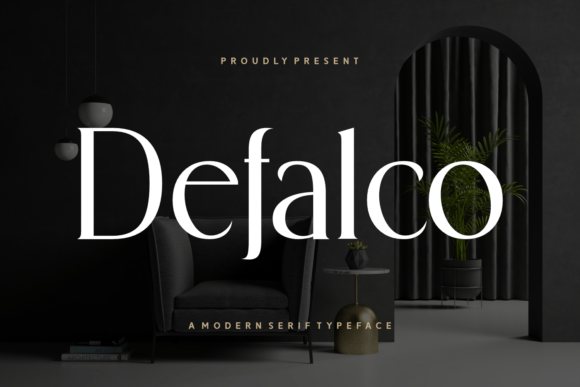
Introducing Defalco Font: The Epitome of Modern Serif Elegance
In the realm of typography, the right font can elevate a design from mundane to extraordinary. For those seeking a typeface that exudes sophistication, luxury, and modernity, look no further than Defalco Font. This stunning serif font is making waves in the design community with its crisp, elegant lines and versatile appeal. In this article, we’ll delve into the world of Defalco Font, exploring its unique characteristics, design inspiration, and the creative possibilities it offers.
Defalco Font: Elevating Design with Modern Serif Elegance
The Design Behind Defalco Font
Defalco Font is a masterclass in modern serif design. Its creation involved a meticulous process of blending traditional serif elements with contemporary flair. The result is a typeface that feels both timeless and cutting-edge. Each letterform in Defalco is crafted with precision, featuring subtle curves and sharp lines that contribute to its overall elegance.
Key Features of Defalco Font
- Modern Serif Design: Defalco boasts a modern serif style that sets it apart from more traditional typefaces. Its serifs are sleek and understated, adding a touch of sophistication to any design.
- Elegant Lines: The font’s lines are crisp and clean, making it perfect for high-end branding, editorial design, and luxury packaging.
- Versatility: Defalco is designed to be versatile, suitable for a wide range of applications from digital interfaces to print materials.
- Legibility: Despite its elegant design, Defalco maintains excellent legibility, ensuring that your message is conveyed clearly and effectively.
Design Inspiration: The Intersection of Luxury and Modernity
The promotional image featuring Defalco Font is a testament to its high-end aesthetic. Set against a backdrop of a luxurious, contemporary interior, the font is showcased in a crisp, elegant white. The sophisticated setting, complete with designer furniture and atmospheric lighting, highlights the font’s chic character. This visual representation underscores Defalco’s potential to elevate designs in luxurious contexts, from high-fashion magazines to upscale brand campaigns.
Creative Possibilities with Defalco Font
Defalco Font opens up a world of creative possibilities for designers. Here are a few ways to leverage this stunning typeface:
Branding and Logo Design
For brands aiming to convey luxury, sophistication, and modernity, Defalco is an excellent choice. Its elegant lines and serif details can add a touch of class to logos, making them stand out in a crowded market.
Editorial Design
Defalco shines in editorial design, particularly in high-end publications. Its legibility and aesthetic appeal make it perfect for articles, headlines, and titles, adding a layer of sophistication to any editorial spread.
Luxury Packaging
Luxury brands often seek unique ways to stand out on crowded store shelves. Defalco Font can be used to create stunning packaging that communicates exclusivity and high quality.
Digital Interfaces
In the digital realm, typography plays a crucial role in user experience. Defalco’s modern design and legibility make it suitable for websites, apps, and digital marketing materials, providing a seamless and elegant user experience.
Defalco Font represents a significant advancement in modern serif typography. Its elegant design, versatility, and high-end aesthetic make it an invaluable tool for designers seeking to create sophisticated and luxurious designs. Whether you’re working on branding, editorial projects, or digital interfaces, Defalco offers the perfect blend of style and functionality. As the design landscape continues to evolve, fonts like Defalco will undoubtedly play a pivotal role in shaping the visual narratives of tomorrow.